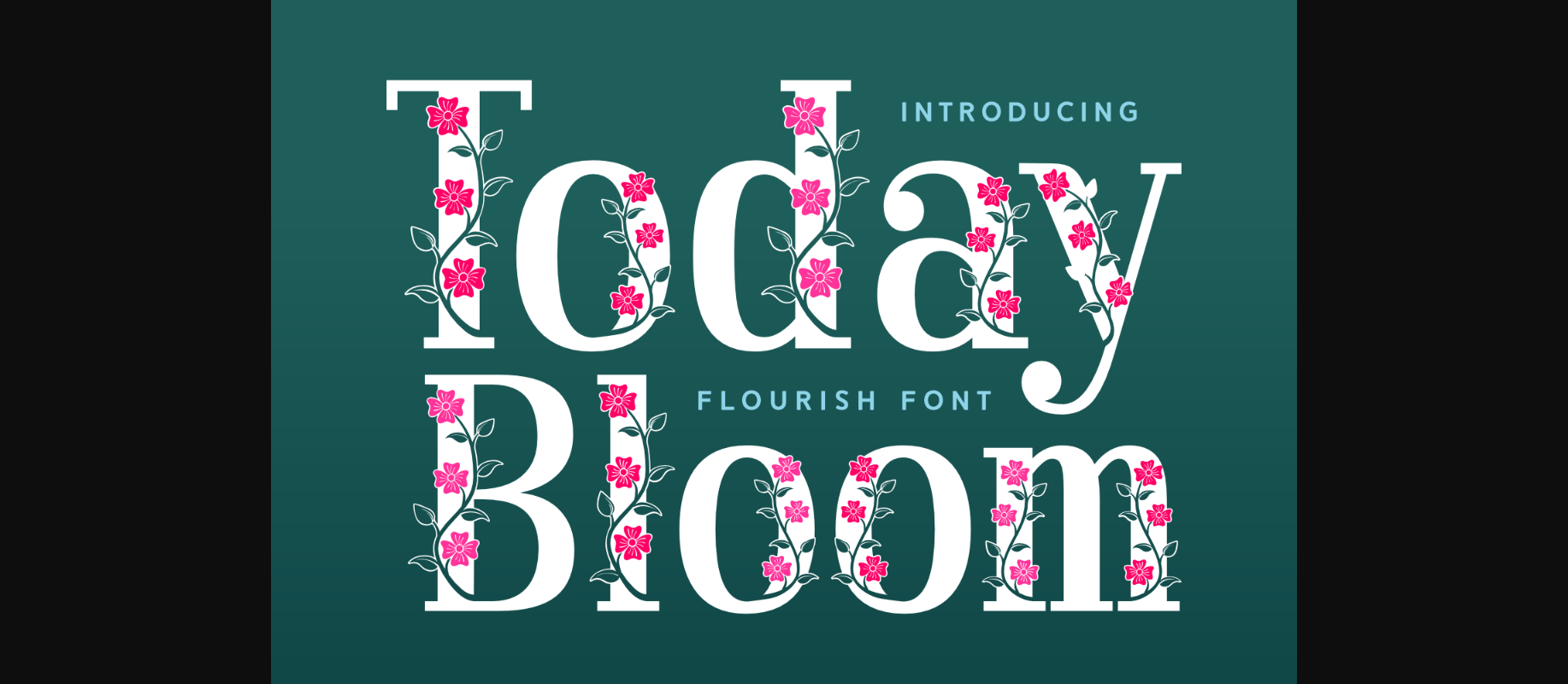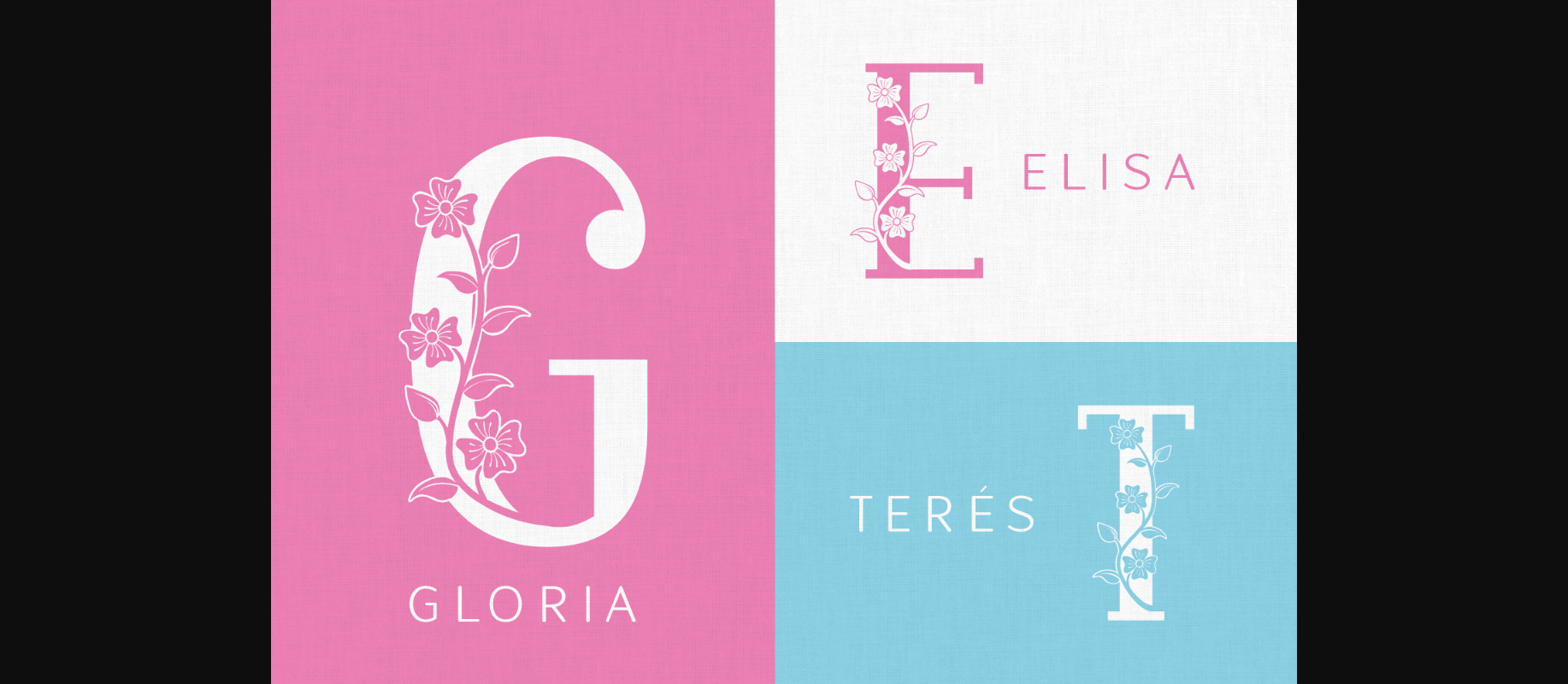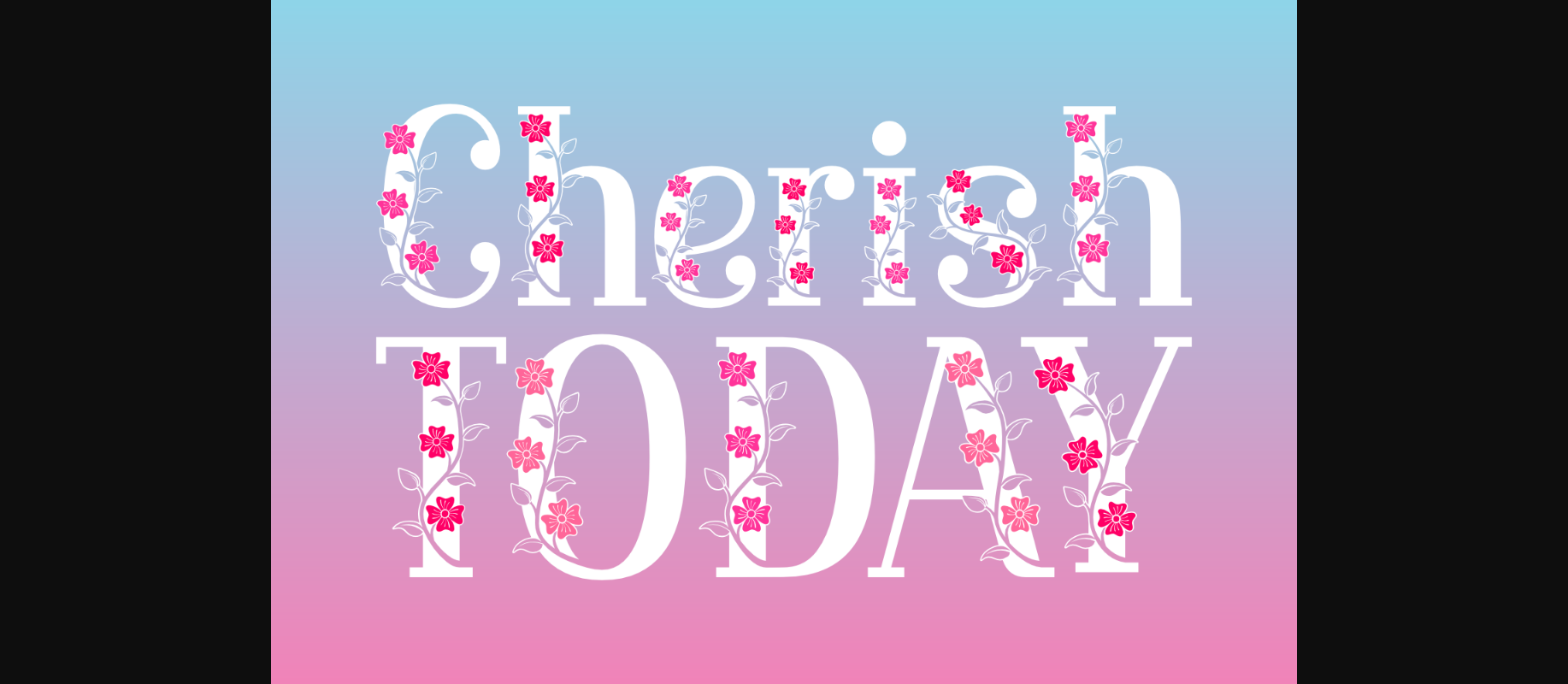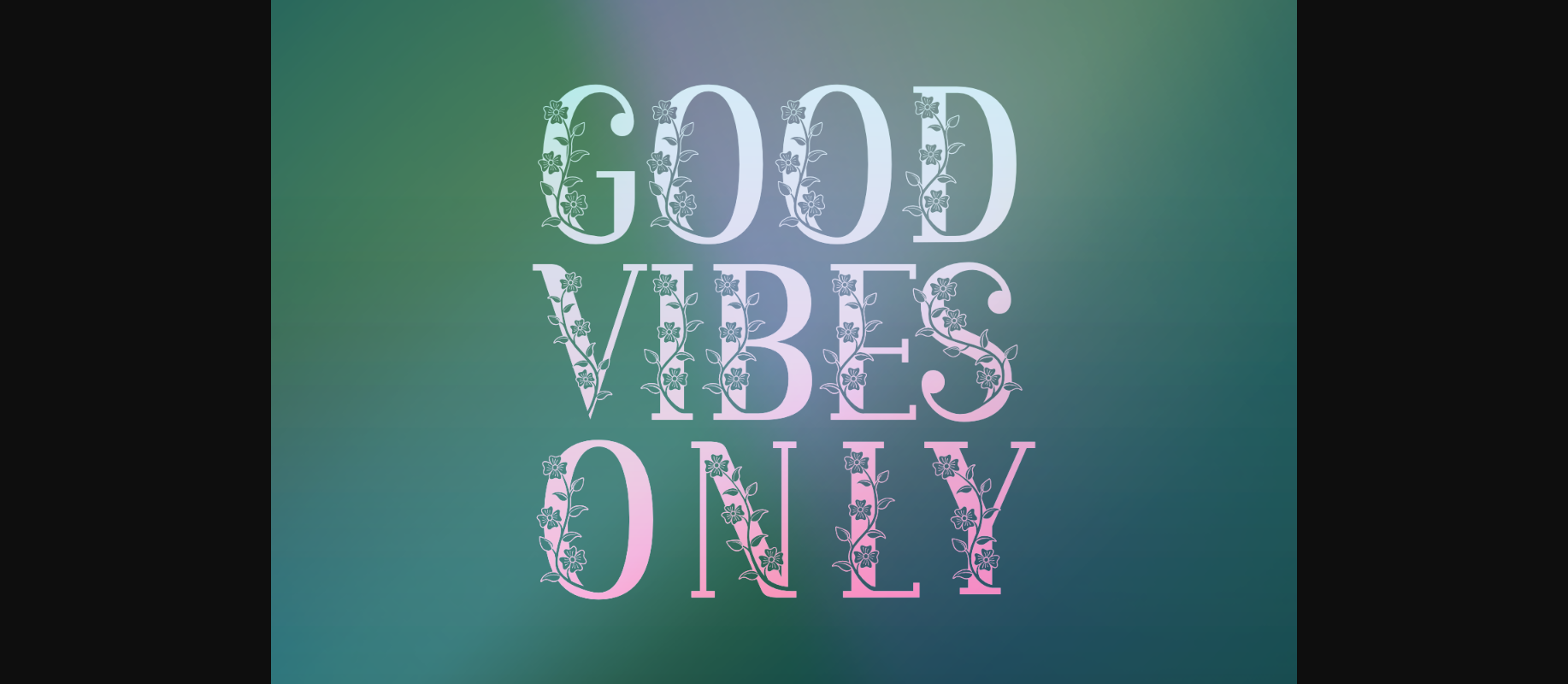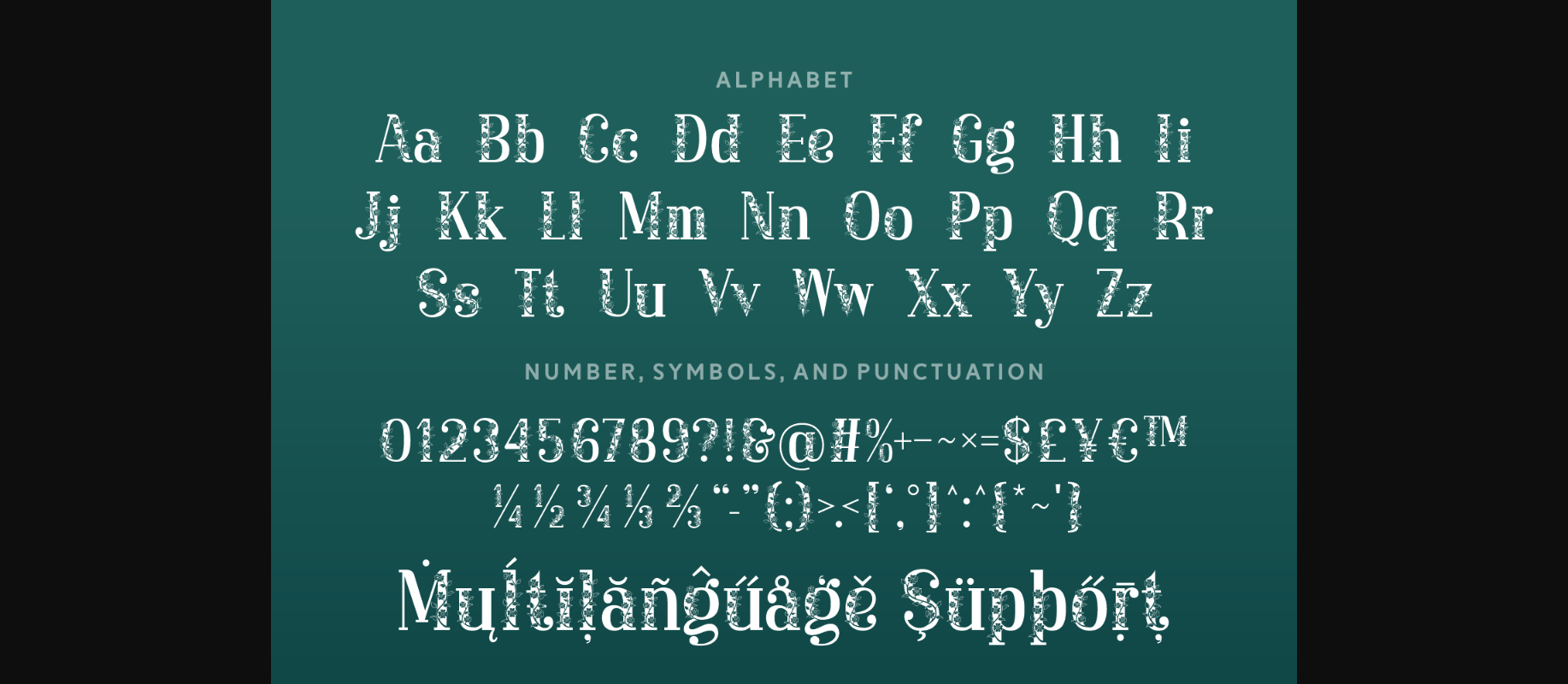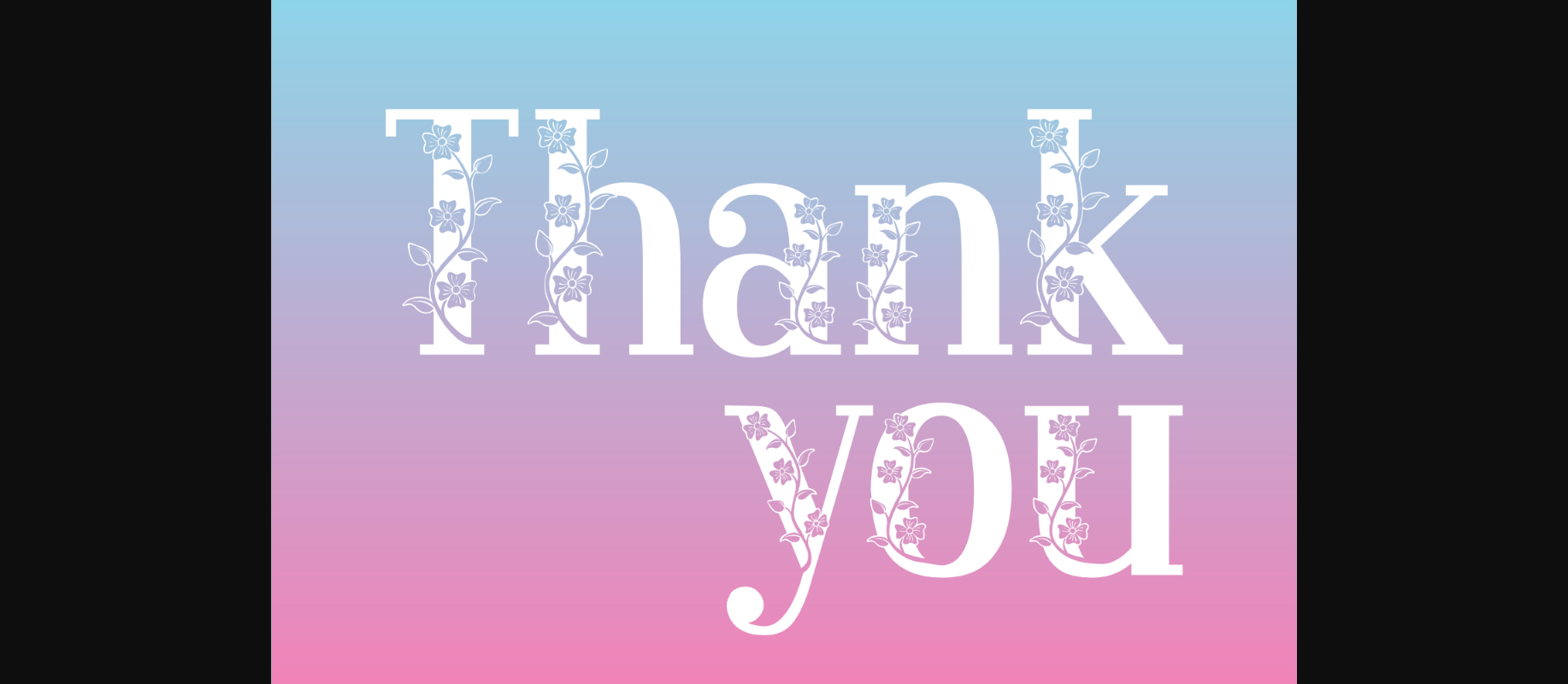
HomeDecorative FontsToday Bloom Font Decorative Fonts Today Bloom Font FacebookXPinterestWhatsApp 1 of 8 ... Today Bloom Font Poster 2... Today Bloom Font Poster 3... Today Bloom Font Poster 4... Today Bloom Font Poster 5... Today Bloom Font Poster 6... Today Bloom Font Poster 7... Today Bloom Font Poster 8... About Today Bloom Font Today Bloom is a spring-like decorative font with beautiful flourishes details. This feminine font is perfect for personal branding, wedding invitations, wall art, frames, spring cards, t-shirts, posters, and quotes. DOWNLOAD NOW People also explored Mango Juice Font Musician Font Beloved Font Little Cloud Font Without You Font Tropical Sweet Font New York Signature Font Farmhouse Sign Mockup Mock-Up Shanky Font 266 0 TagsToday Bloom Font Previous articleCherry FontNext articleSplash Font LEAVE A REPLY Cancel reply Comment: Please enter your comment! Name:* Please enter your name here Email:* You have entered an incorrect email address! Please enter your email address here Website: Save my name, email, and website in this browser for the next time I comment. Personal Use Free Sheiloria Personal Use Free Read more about this font Eaglese Personal Use Free Read more about this font Allea Sweet Personal Use Free Read more about this font Black Personal Use Free Read more about this font BLOG How to Install and Use Fonts on Windows, macOS, and Web Projects How to Install and Use Fonts on Windows, macOS, and Web Projects Fonts are a crucial part of design and branding. Whether you’re designing a... How to Cut Any Font on Cricut: Convert a Font to SVG (Free) Best Fonts for T-Shirt Design – Top 2025 Picks Elegant Wedding Invitation Fonts – Handwritten & Script Fonts